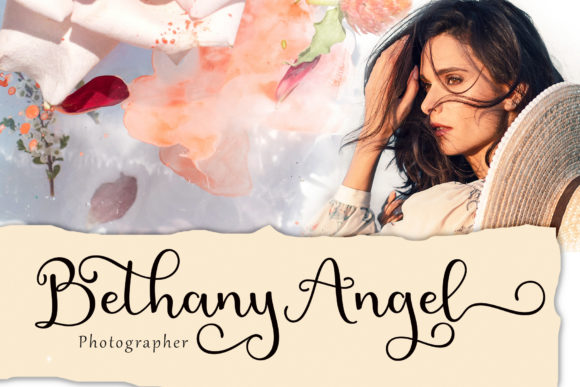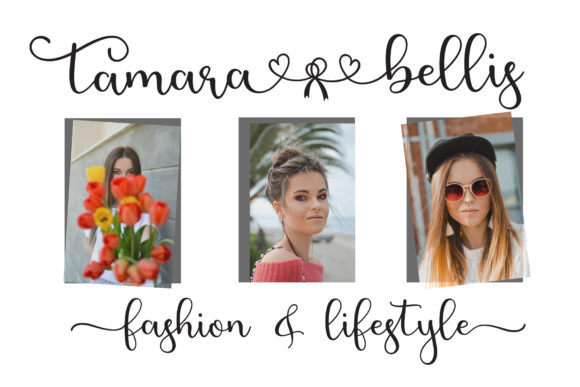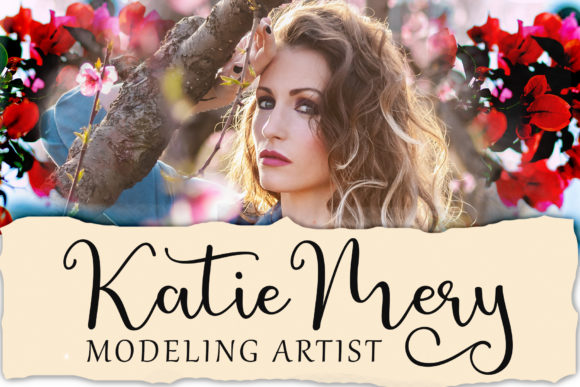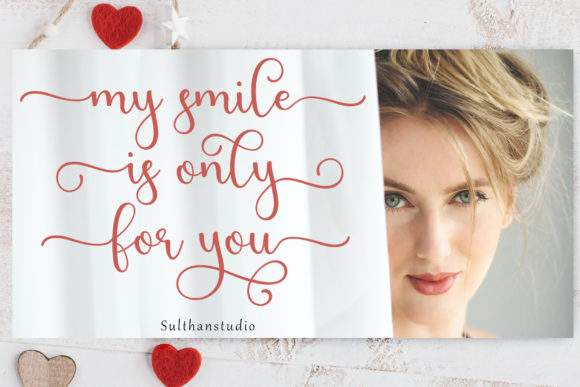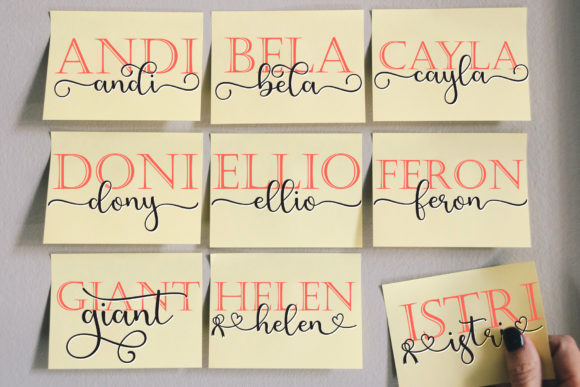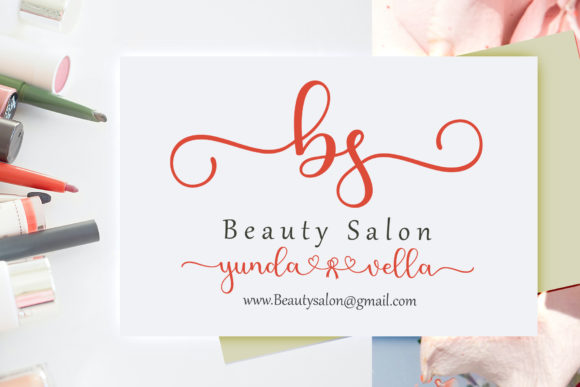
Introduction to Jorstin Font
Do you remember the moment when you stumbled upon that perfect design element that made your creative project shine? For many designers, it’s the font that adds that extra touch of personality to a design. If you’re looking for a fresh and fun font to elevate your next project, you’re in luck! Say hello to the Jorstin Font, a charming calligraphy font that’s perfect for greeting cards, branding materials, and more.
With its PUA encoded design, accessing all the glyphs and swashes is a breeze, making it a valuable resource for designers who want to add that extra flair to their designs. Whether you’re working on a high-quality branding project or creating a simple quote for social media, the Jorstin Font is sure to bring a smile to your face and a touch of elegance to your design.
Key Features of Jorstin Font
- Comes in a single weight, making it easy to use in a variety of design contexts without worrying about multiple font weights.
- Designed with a clean and modern aesthetic, perfect for use in digital and print design projects.
Honest Review: Jorstin Font
I recently stumbled upon the Jorstin Font, and I must say it’s been a great addition to my design resource collection. The free download was easy and seamless, and the font itself is incredibly versatile.
One of the standout features of the Jorstin Font is its ability to work well with transparent backgrounds. This makes it perfect for creative projects that require a touch of elegance and sophistication.
Here are some of the things that work well with the Jorstin Font:
- ✨ Beautiful, modern design that’s perfect for branding and identity projects
- ✨ Highly customizable with various font styles and sizes
- ✨ Works well on both desktop and mobile devices
However, I do have a few limitations with the Jorstin Font:
- ⚠️ Limited font styles and variations compared to other premium fonts
- ⚠️ May not be suitable for complex or large-scale projects due to its relatively simple design
Overall, I’m really impressed with the Jorstin Font. It’s a high-quality design resource that’s perfect for smaller creative projects or personal branding. With a little creativity, you can achieve amazing results with this font.
Common Use Cases for Jorstin Font
Jorstin Font is suitable for a variety of creative projects, including logos, business cards, and social media graphics. Its high-quality design makes it an excellent choice for any project requiring a professional touch.